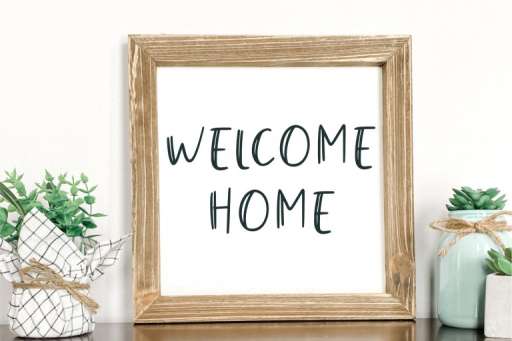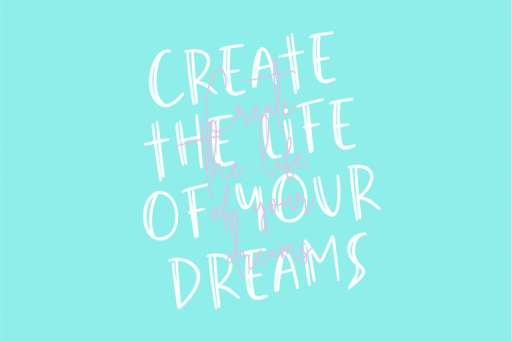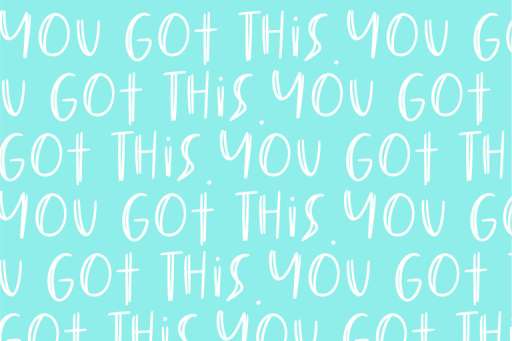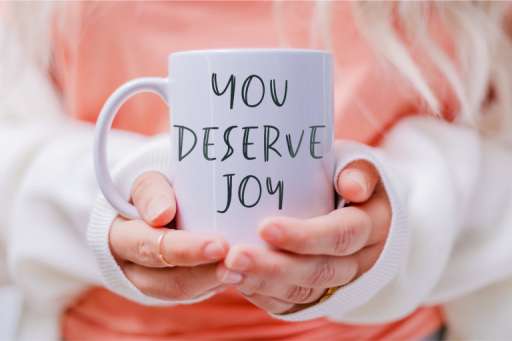
Sugar Plum - Handwriting Font From Jimtype Studio
Sugar Plum Font
Sugar Plum- Handwritten Font from Jimtype Studio
Sugar Plum is a handwritten block sketch Font with all caps characters. Sugar Plum is perfect for quotes, tshirt, product packaging, branding project, social media, poster, halloweeen design or just used to express words above the background.